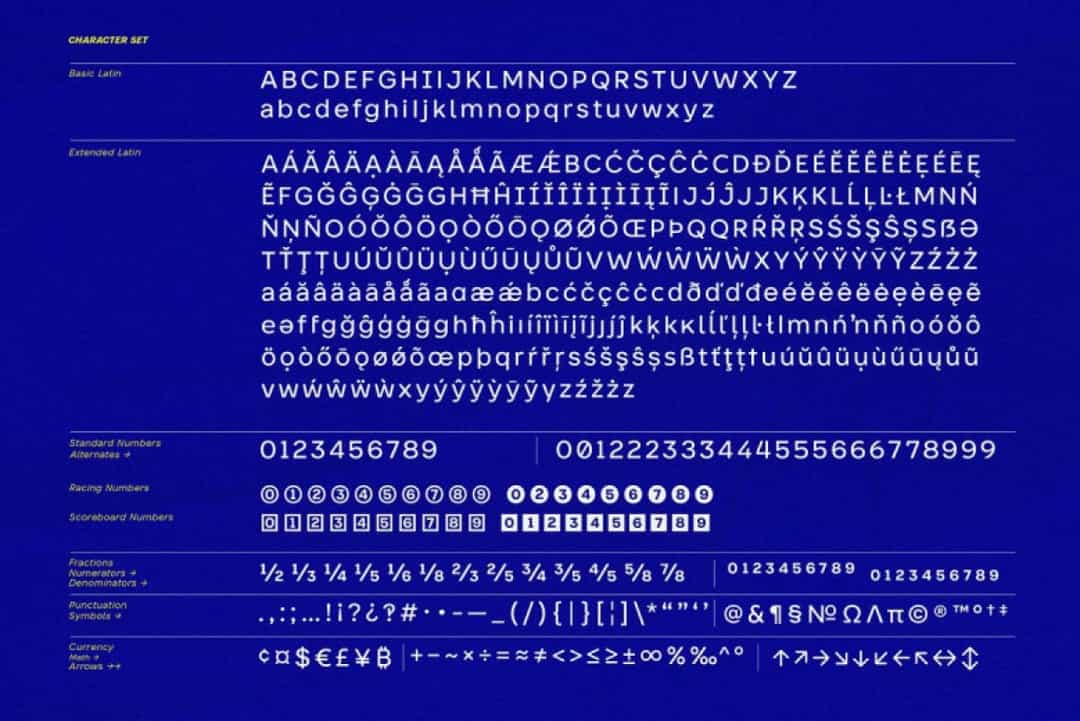
The Toboggan Typeface is an asymmetrical sans serif font family that draws its inspiration from classical proportions, calligraphic elements, sporting themes and sports backgrounds. Available in nine weights with both straight and true italic versions available a set number of 18 fonts.